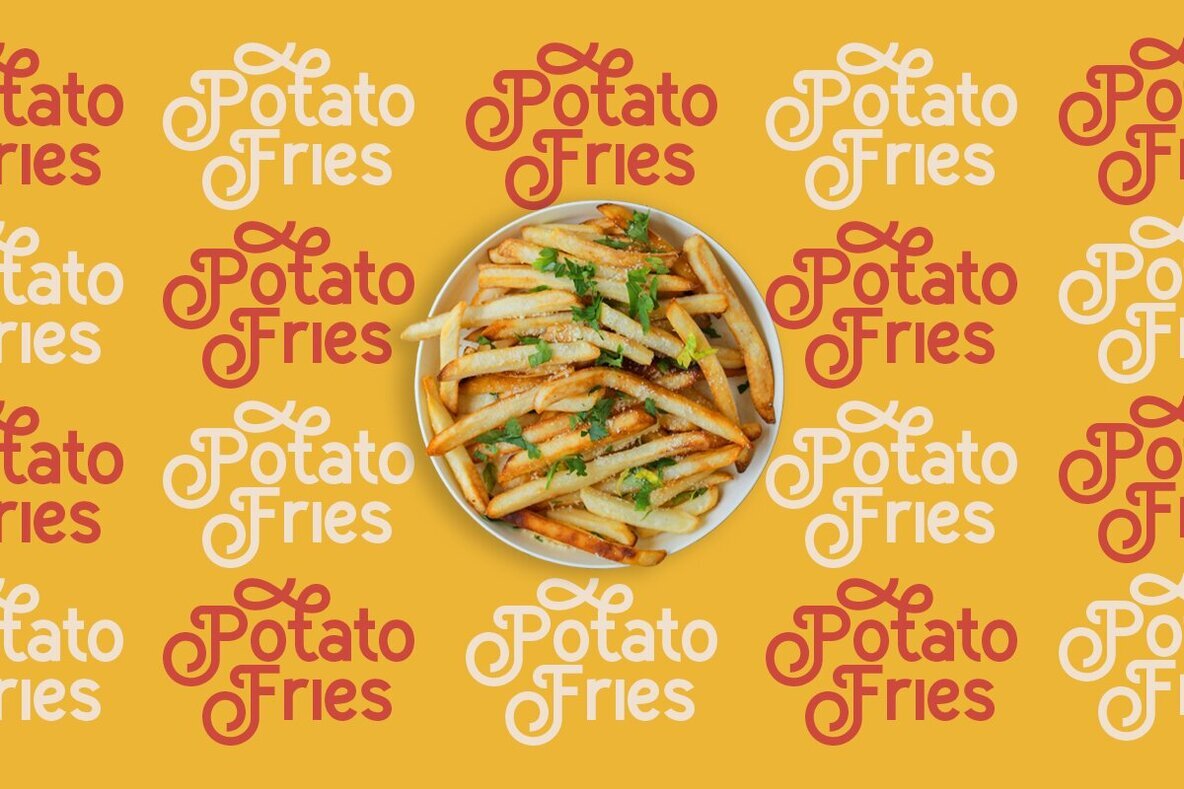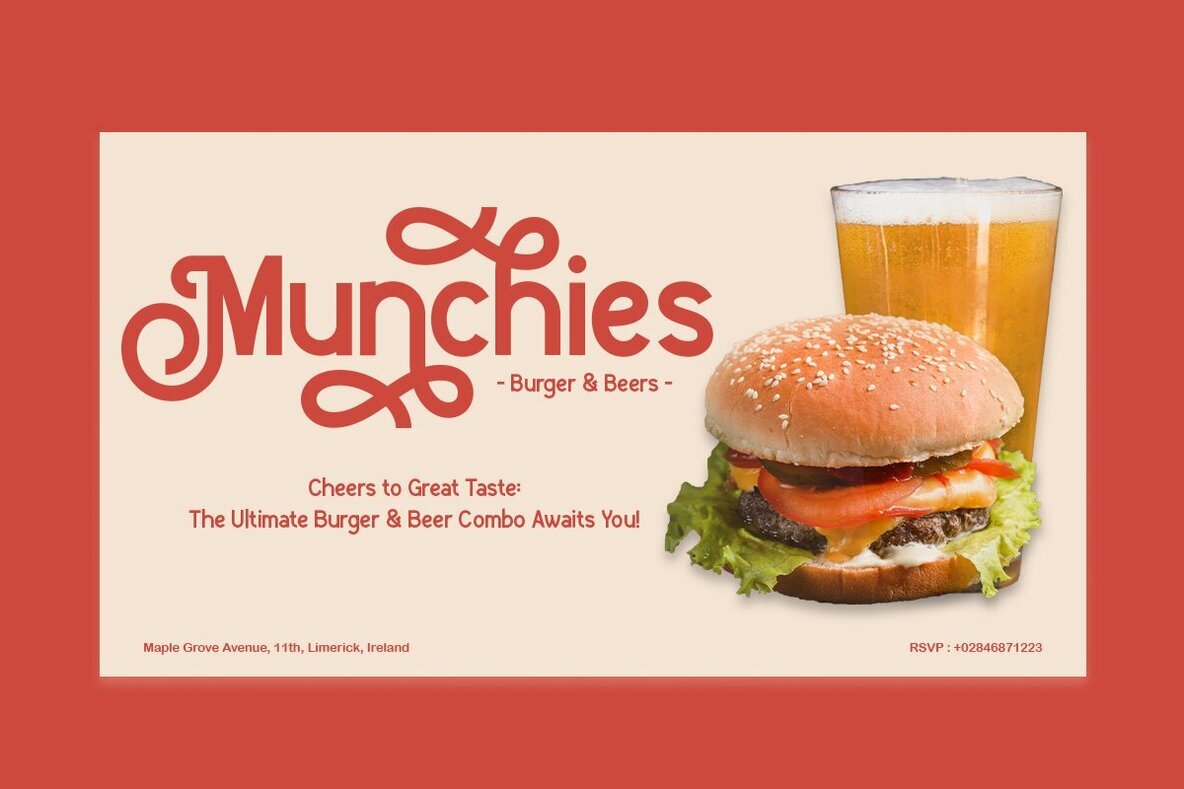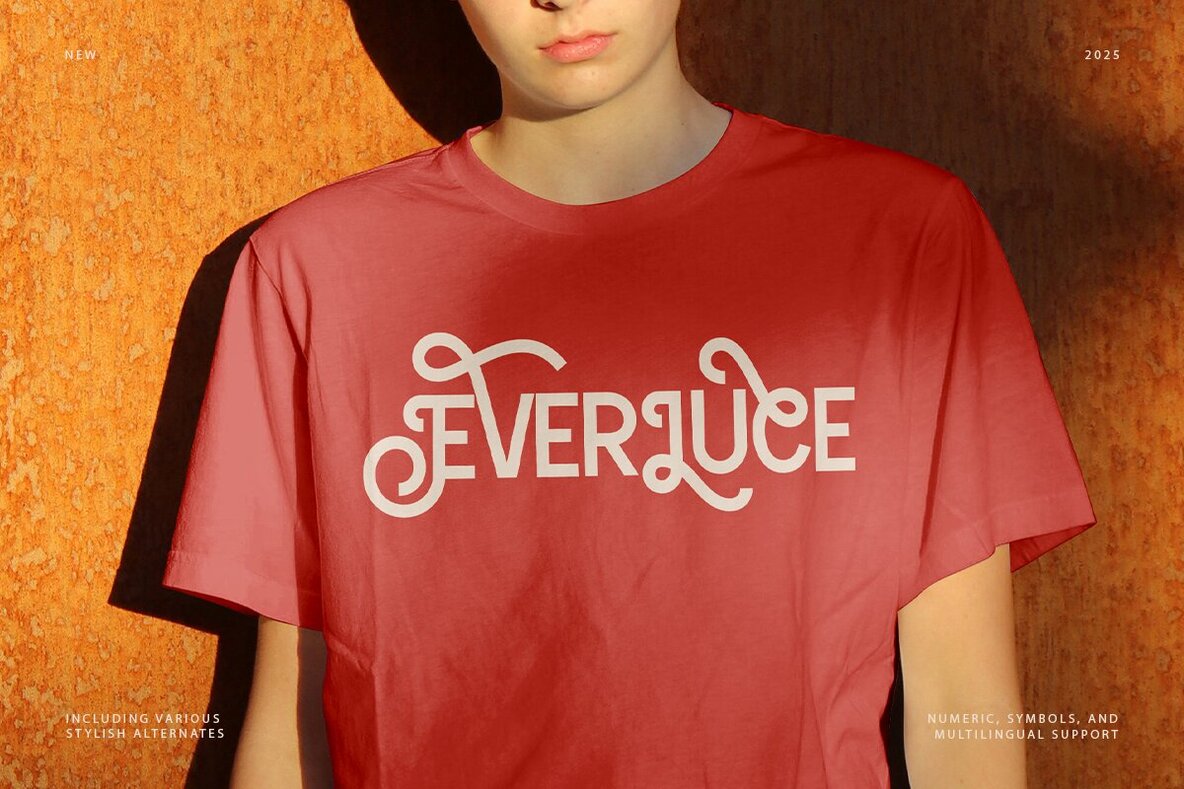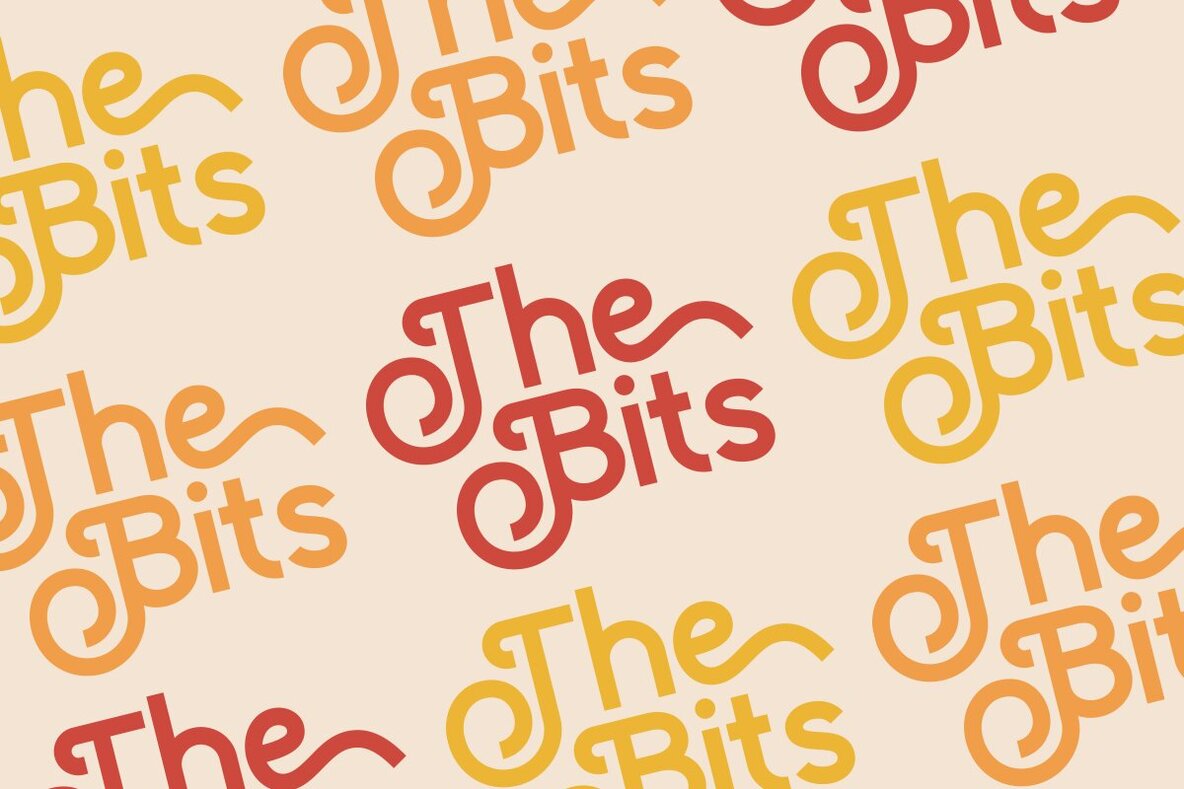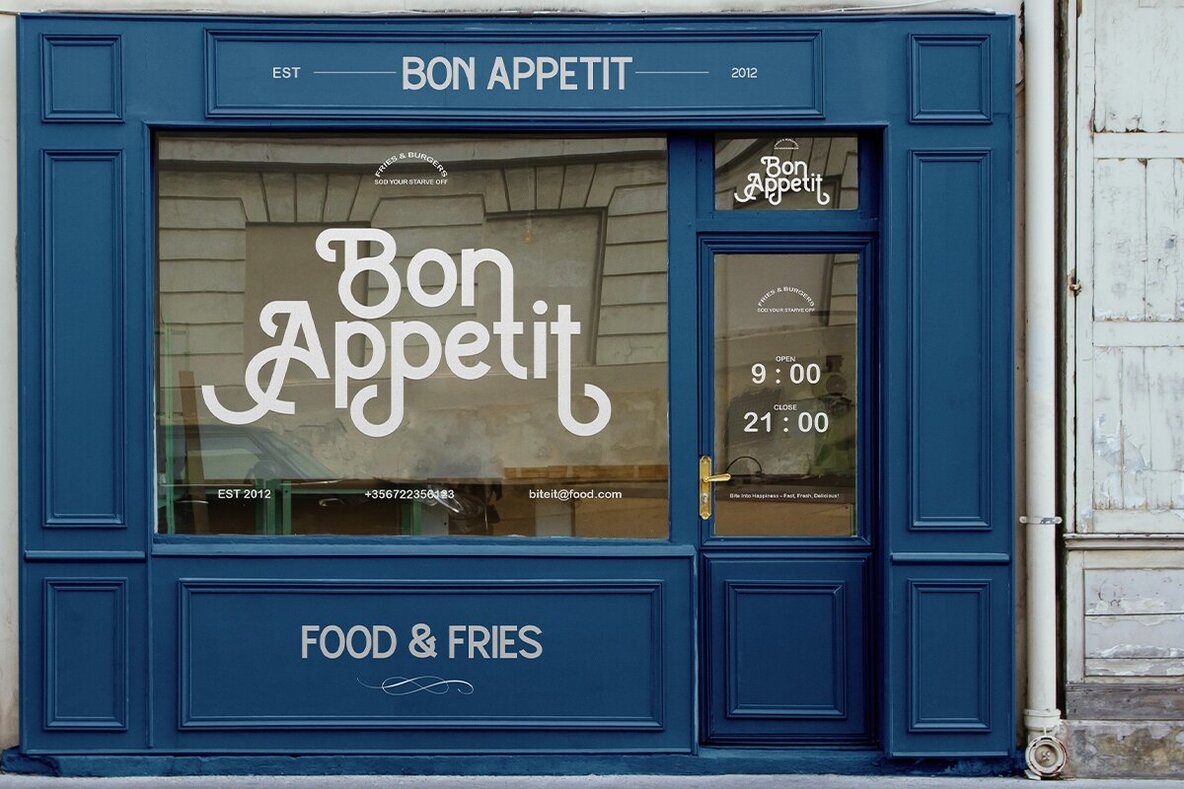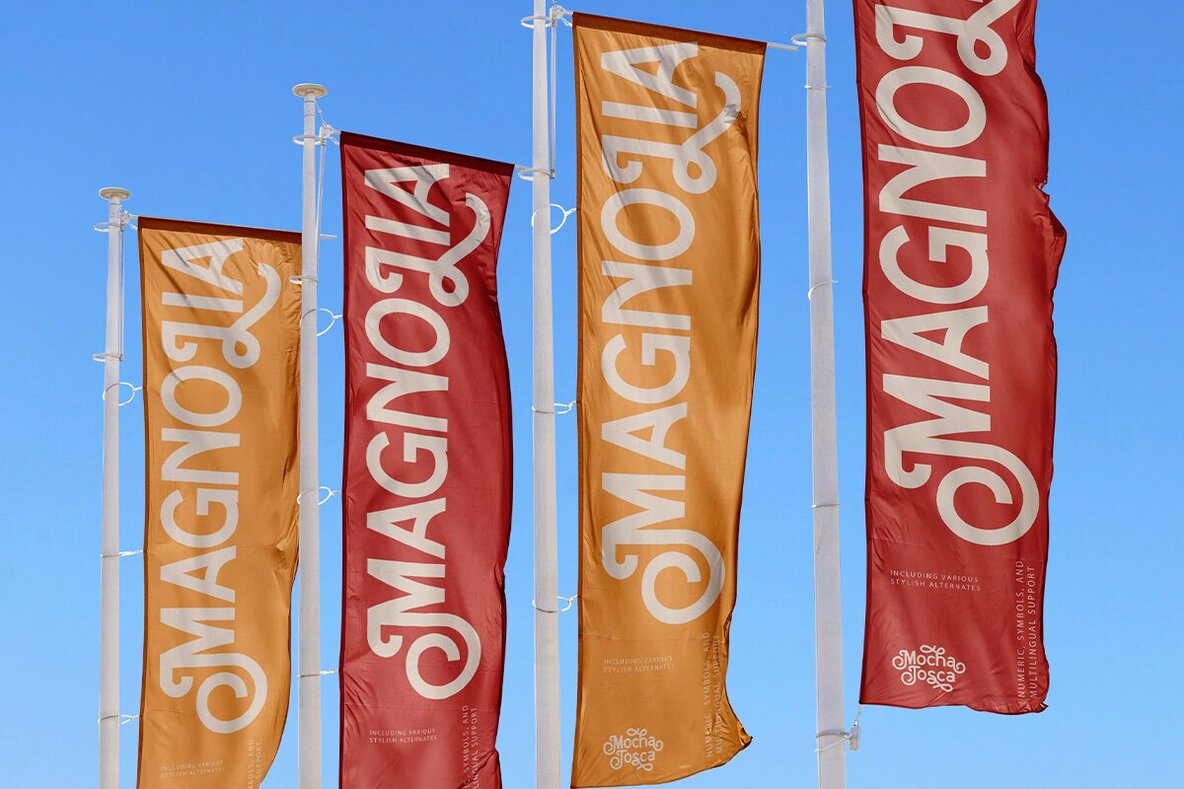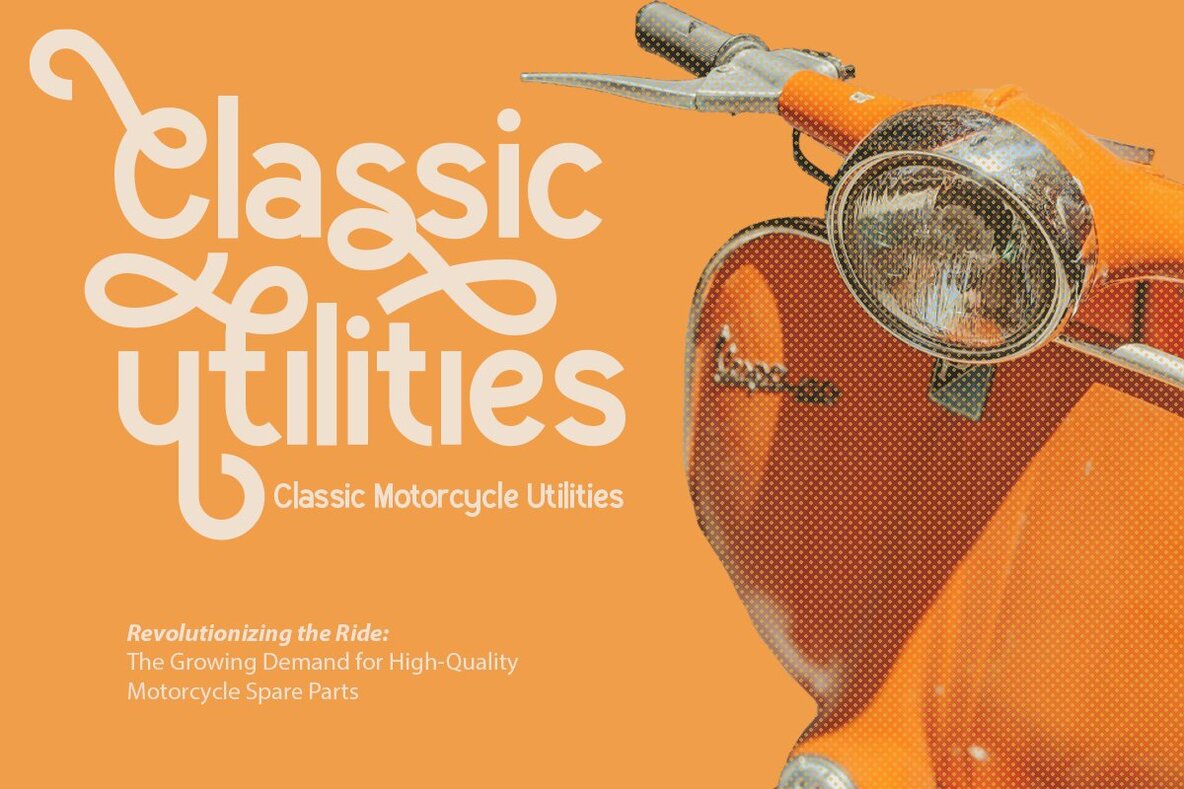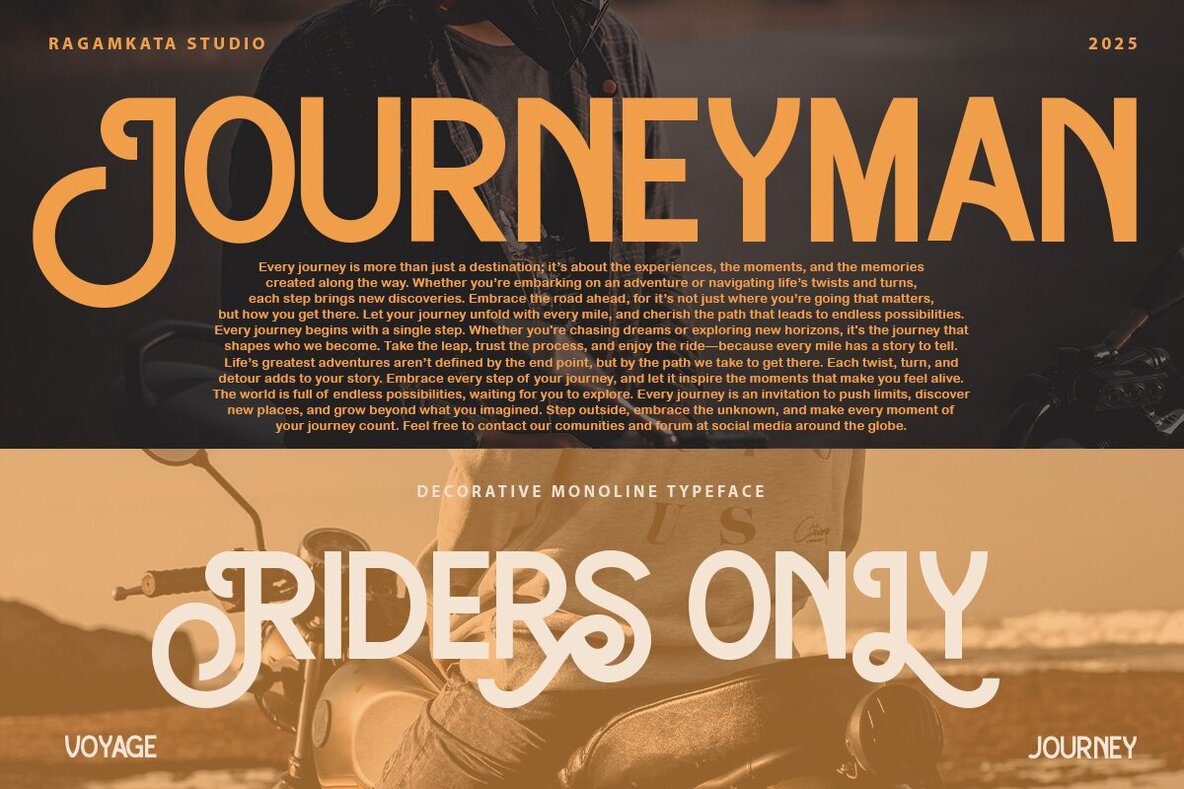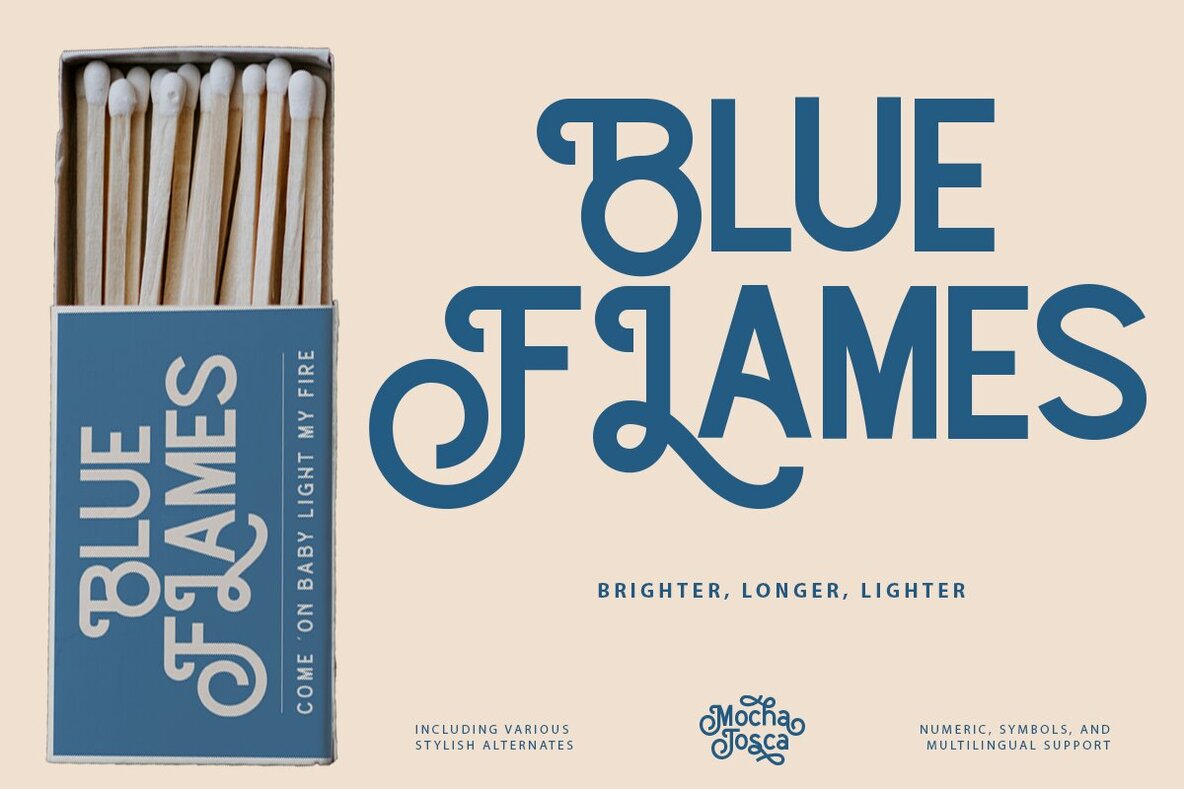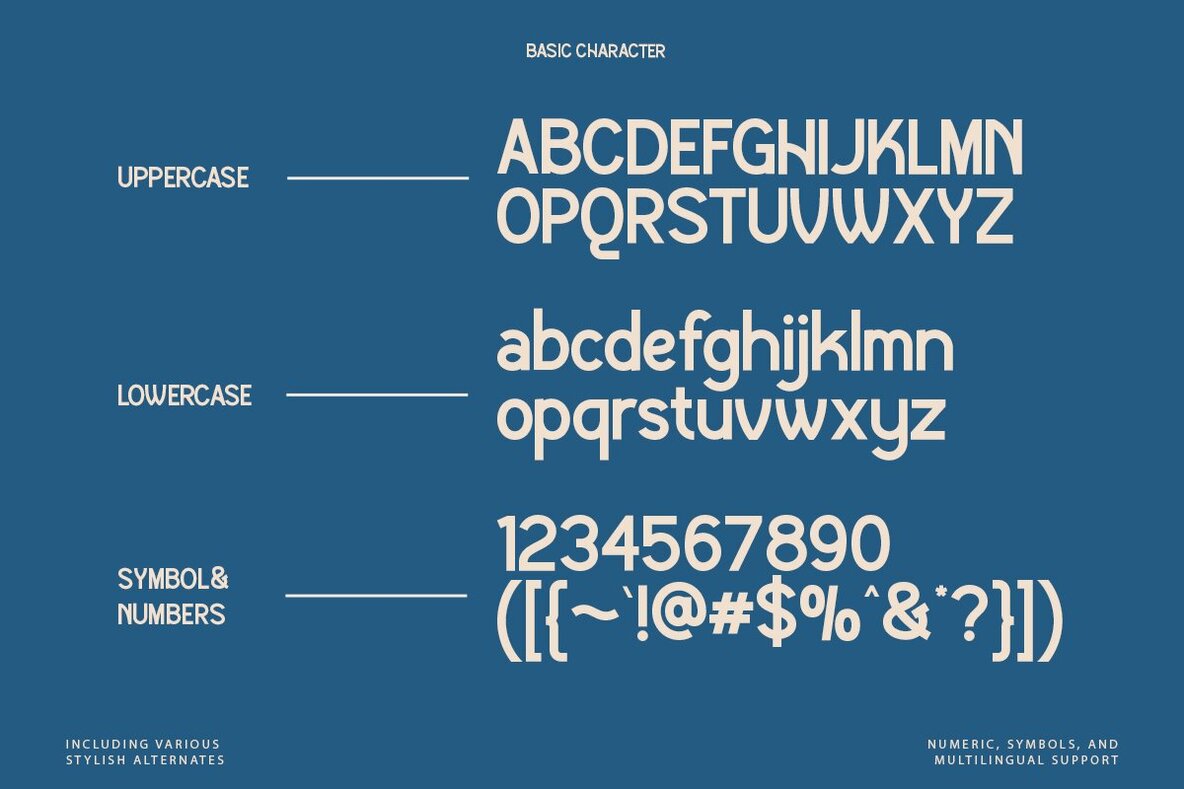
Mocha Tosca Font
Mocha Tosca
Mocha Tosca is a captivating decorative monoline typeface, perfect for bringing a touch of elegance to your designs. With its extensive stylistic alternatives, this font provides an array of unique letters, making it simple to personalize your text. Whether you're crafting a distinctive logo for a product or brand, designing an eye-catching poster, or creating a memorable headline, Mocha Tosca offers the versatility you need.
Ideal for a wide range of applications, including t-shirt designs, vintage projects, magazines, and packaging, this typeface is both aesthetically pleasing and highly functional. Key features include stylistic alternates for added creativity and multi-language support, ensuring your designs can communicate effectively across different languages. Plus, its easy installation process means you can seamlessly integrate Mocha Tosca into your design toolkit and start enhancing your projects right away.